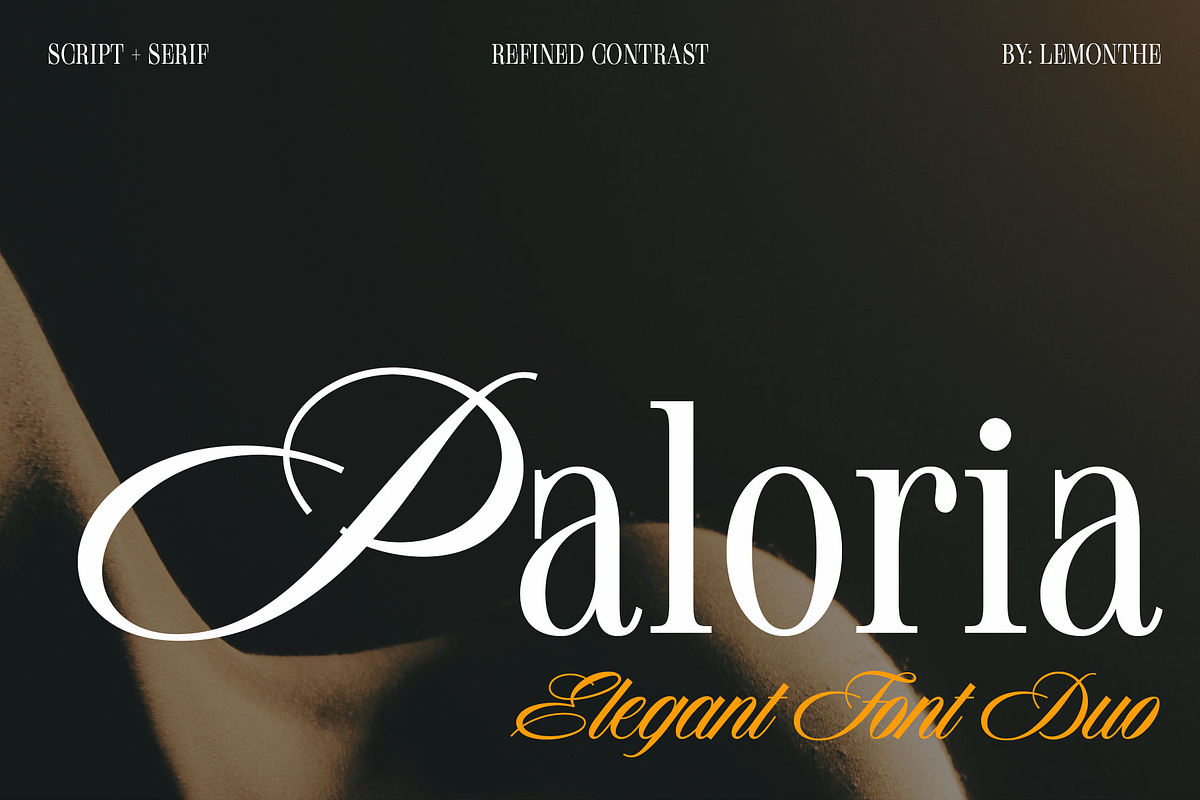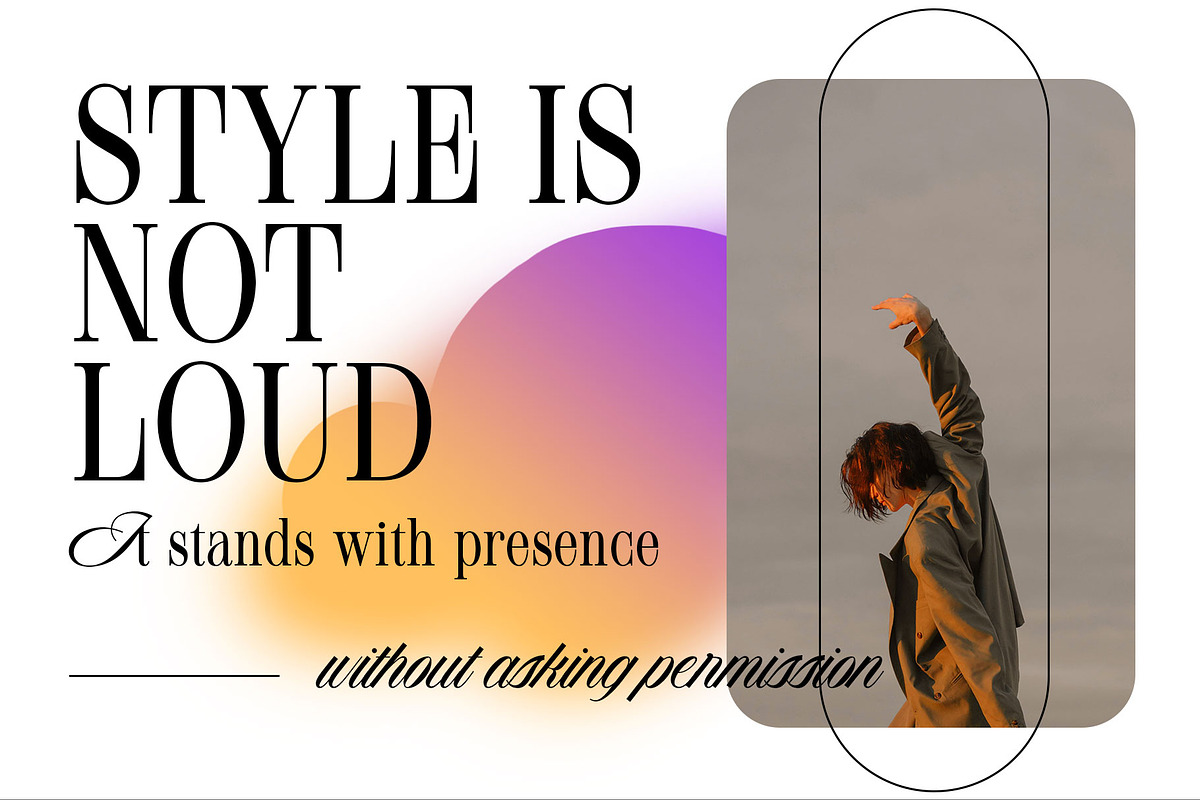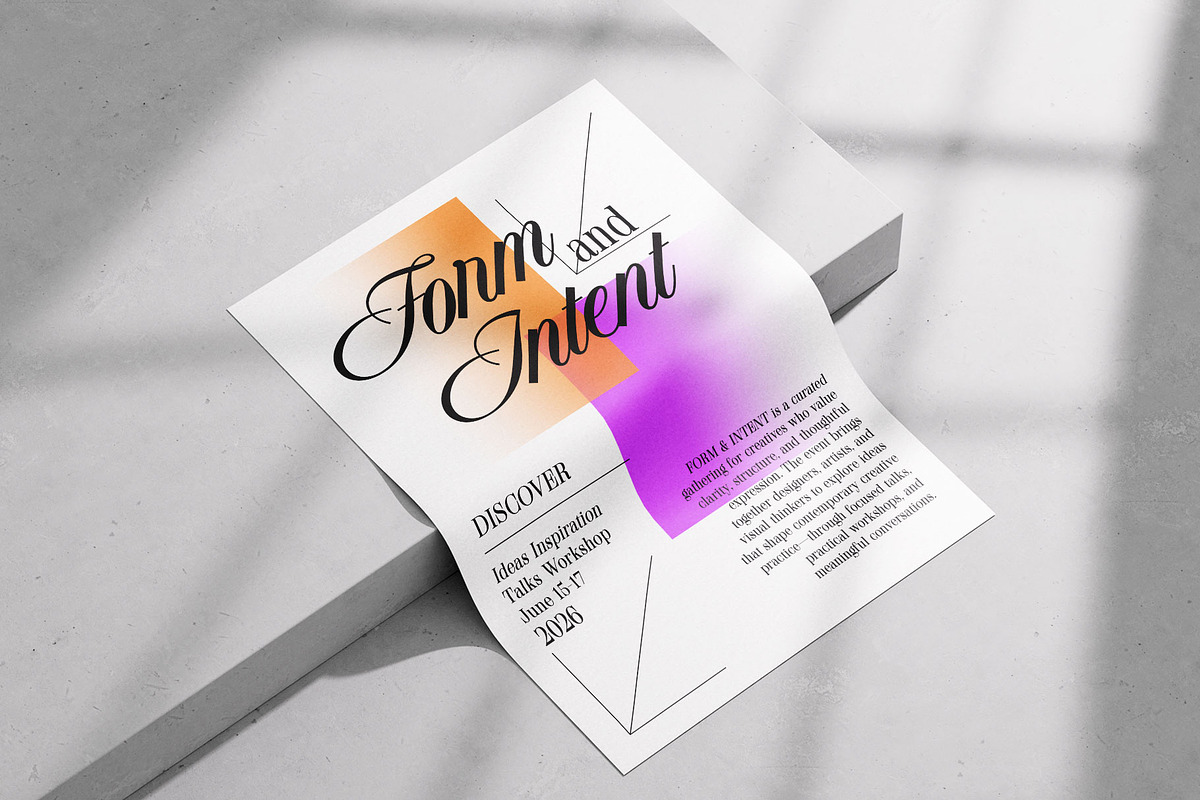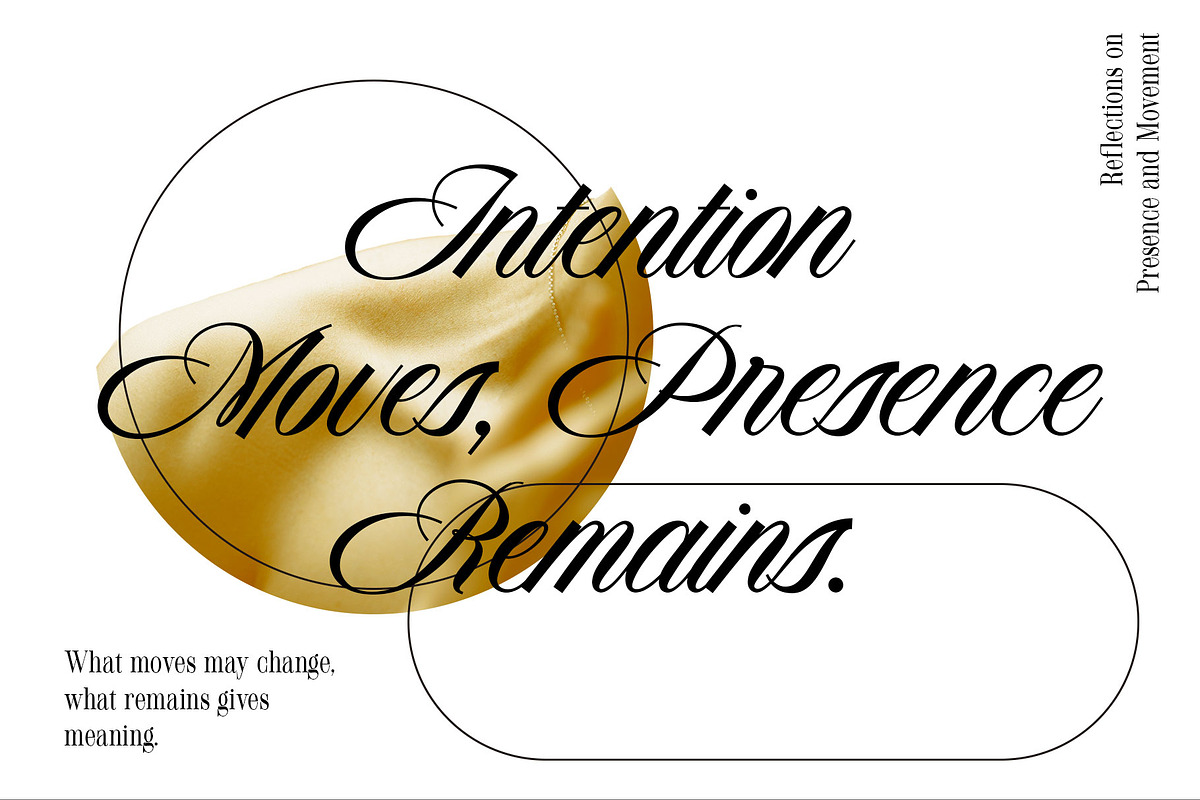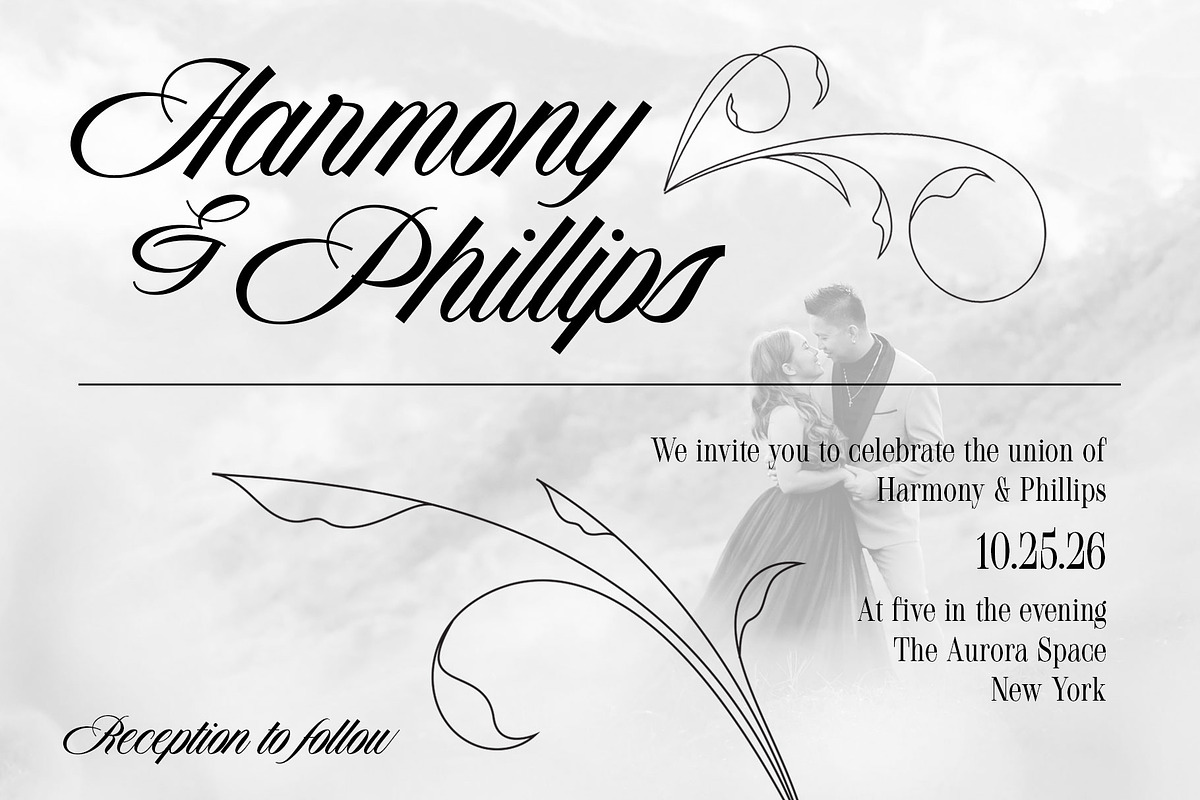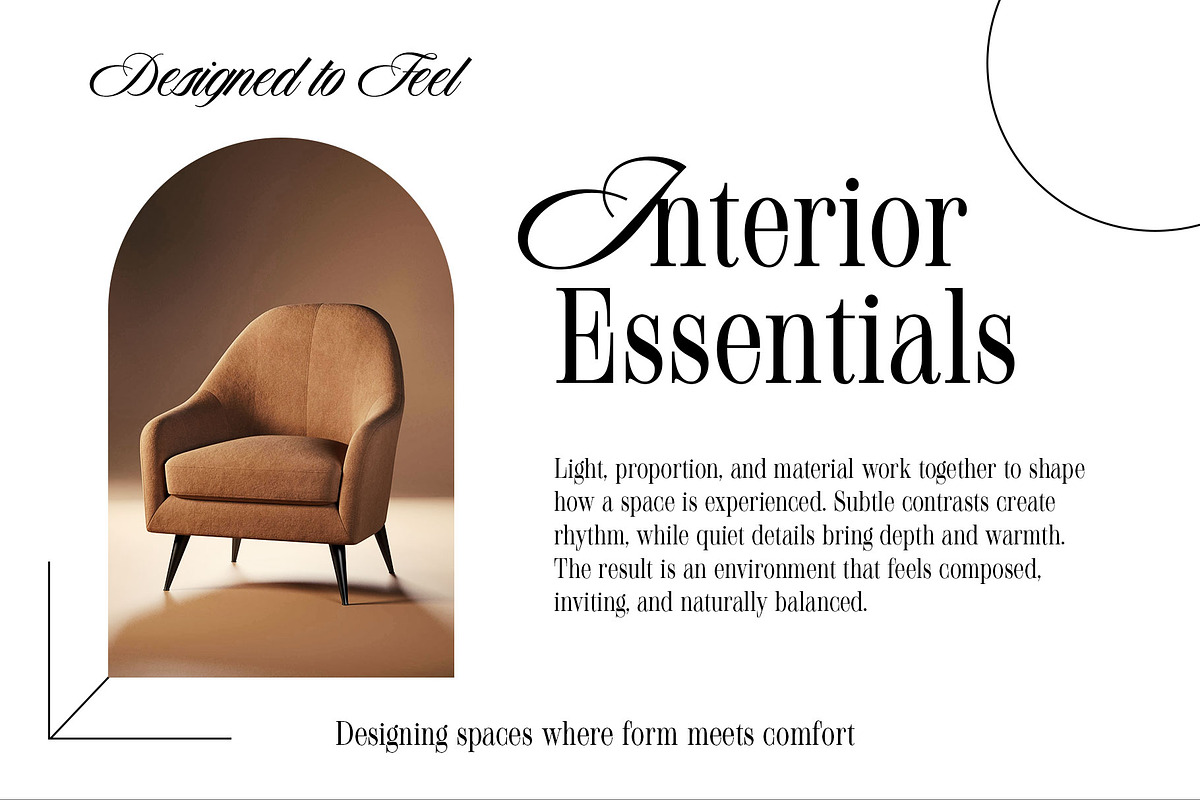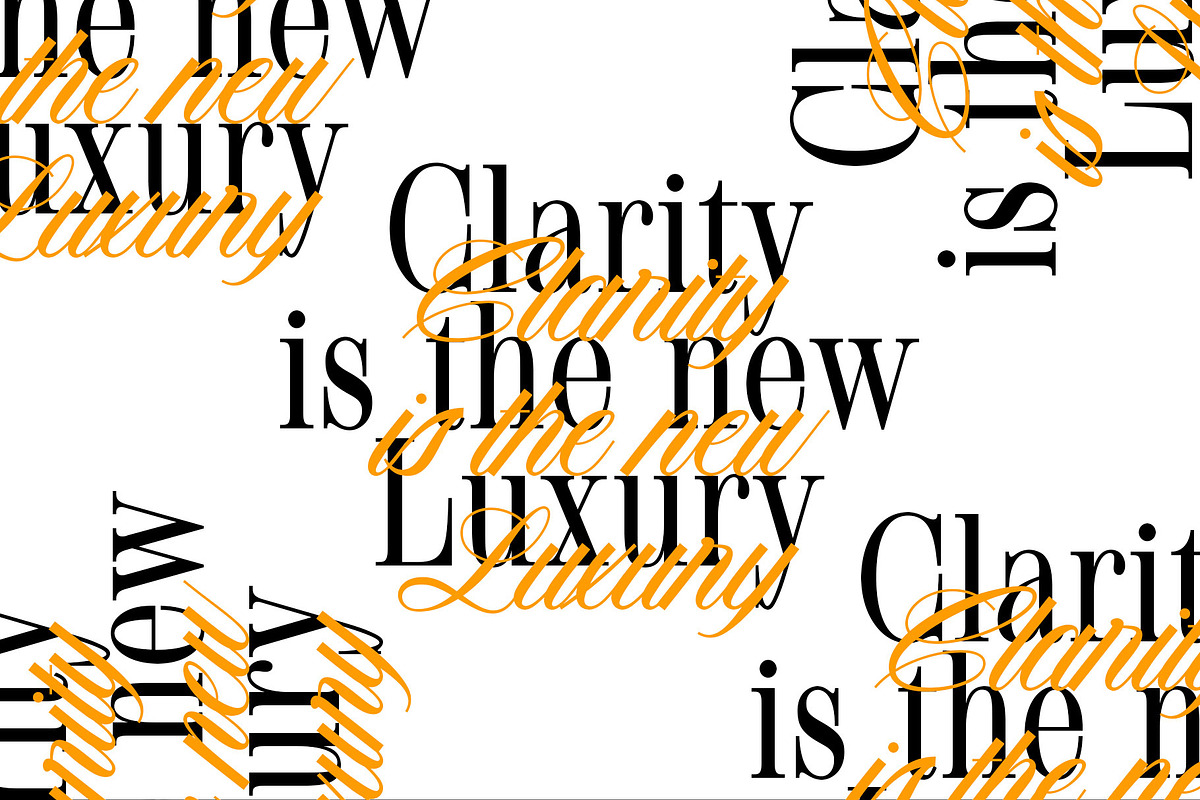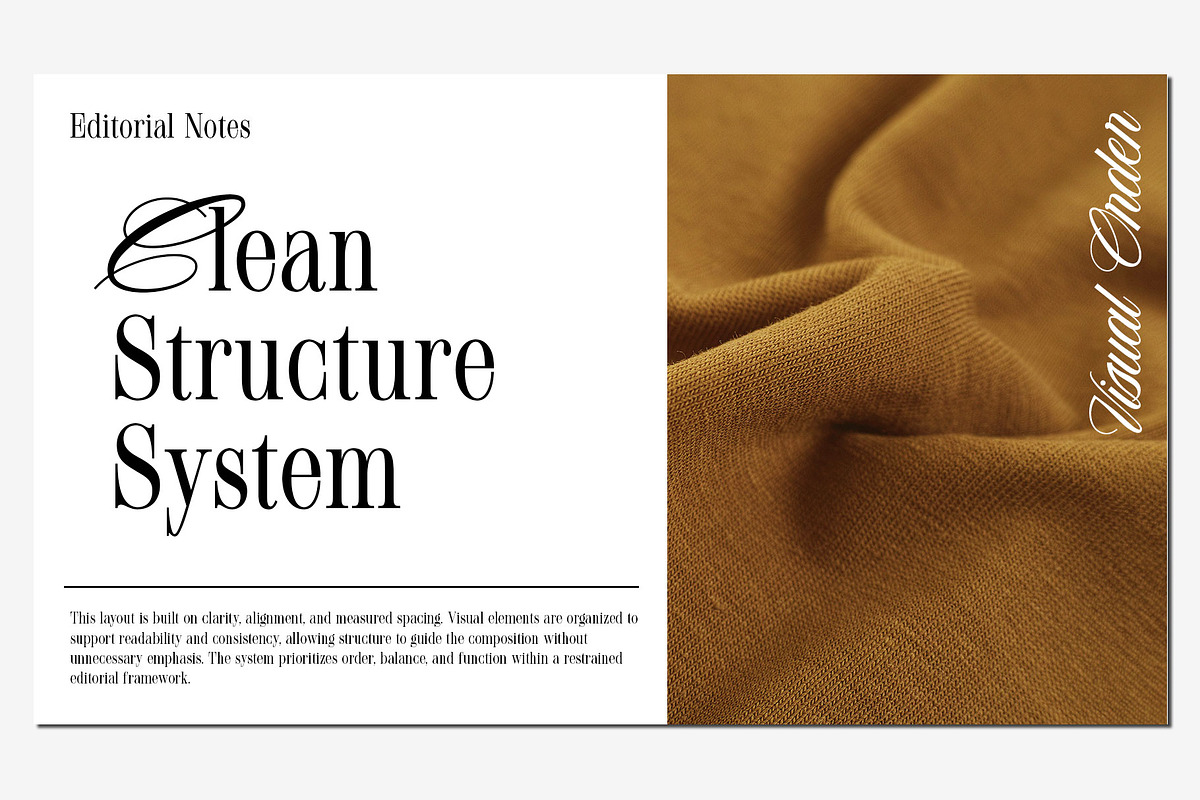
Paloria | Font Duo
Paloria is an elegant font duo that combines a graceful script with a refined serif, creating a timeless and well-balanced typographic expression. The flowing script brings softness, charm, and a sense of sophistication, while the serif adds clarity, structure, and strong visual character. Carefully designed to complement each other, both styles work harmoniously across various design needs. Paloria is ideal for branding, editorial layouts, invitations, packaging, logos, and creative projects that require a perfect balance between elegance and readability, delivering a polished and professional appearance without sacrificing visual warmth or personality.